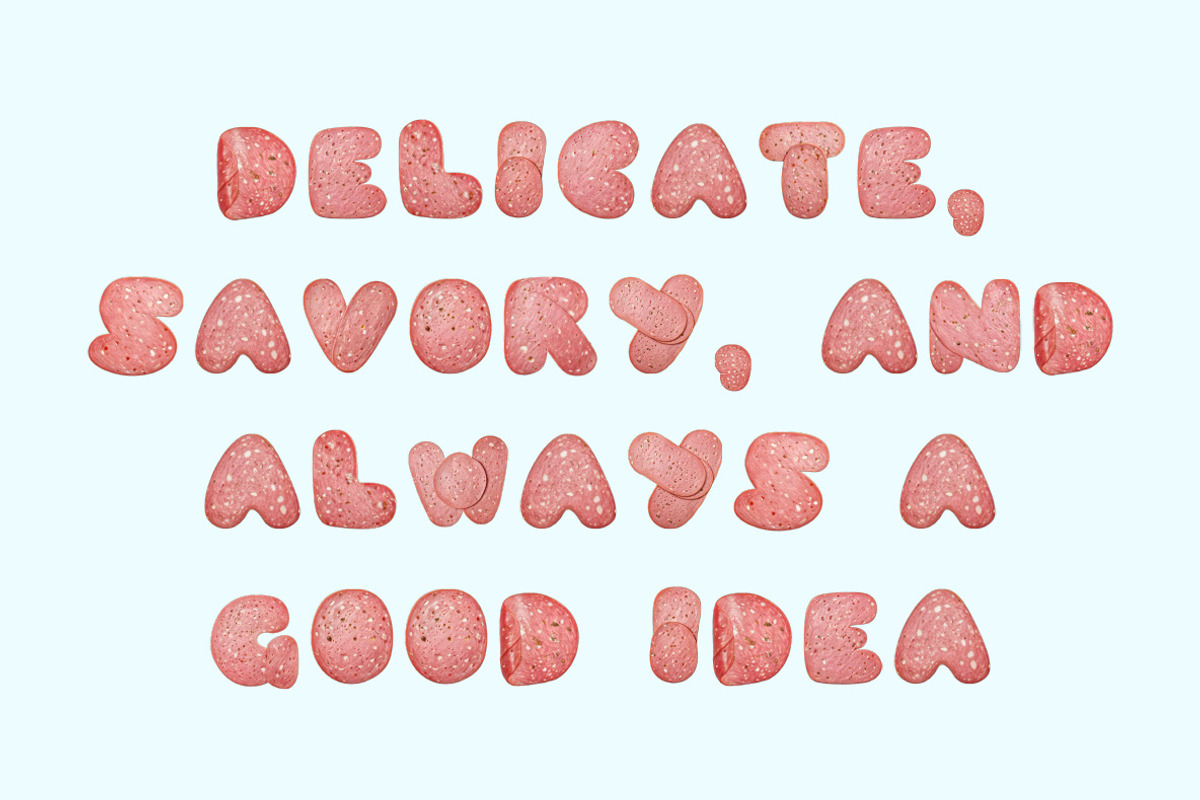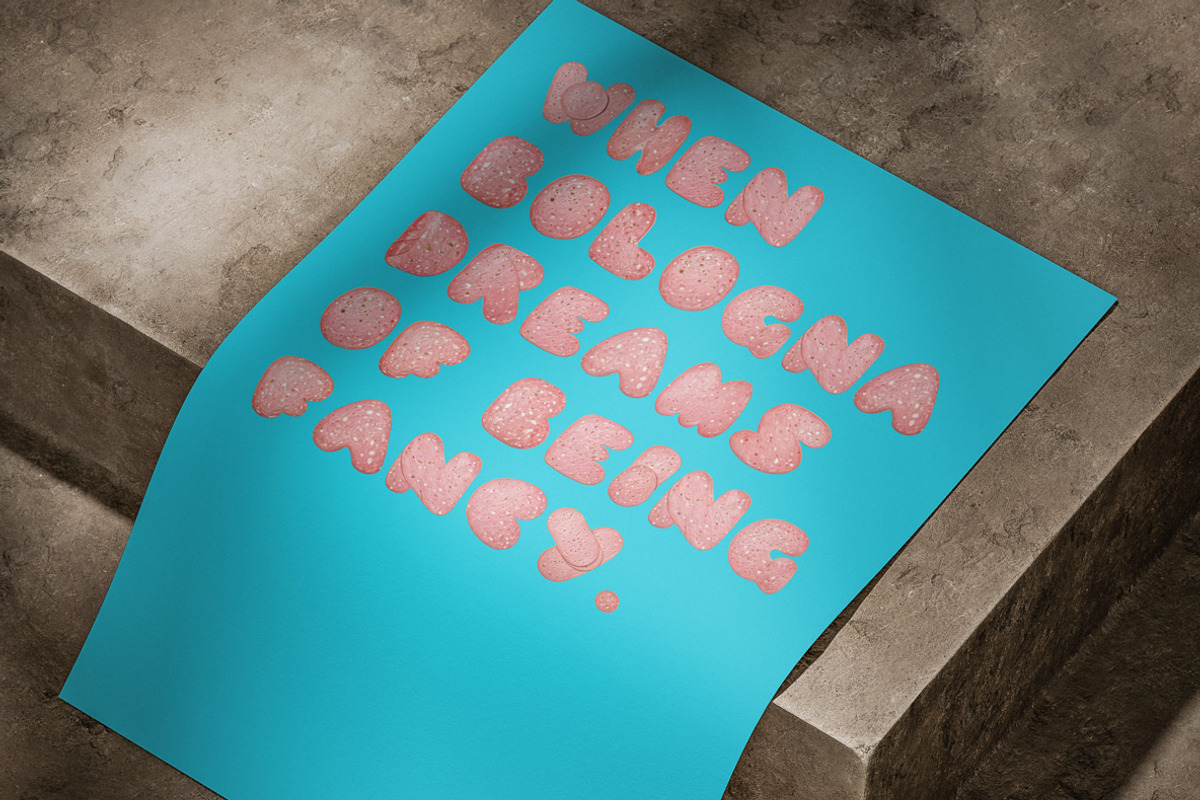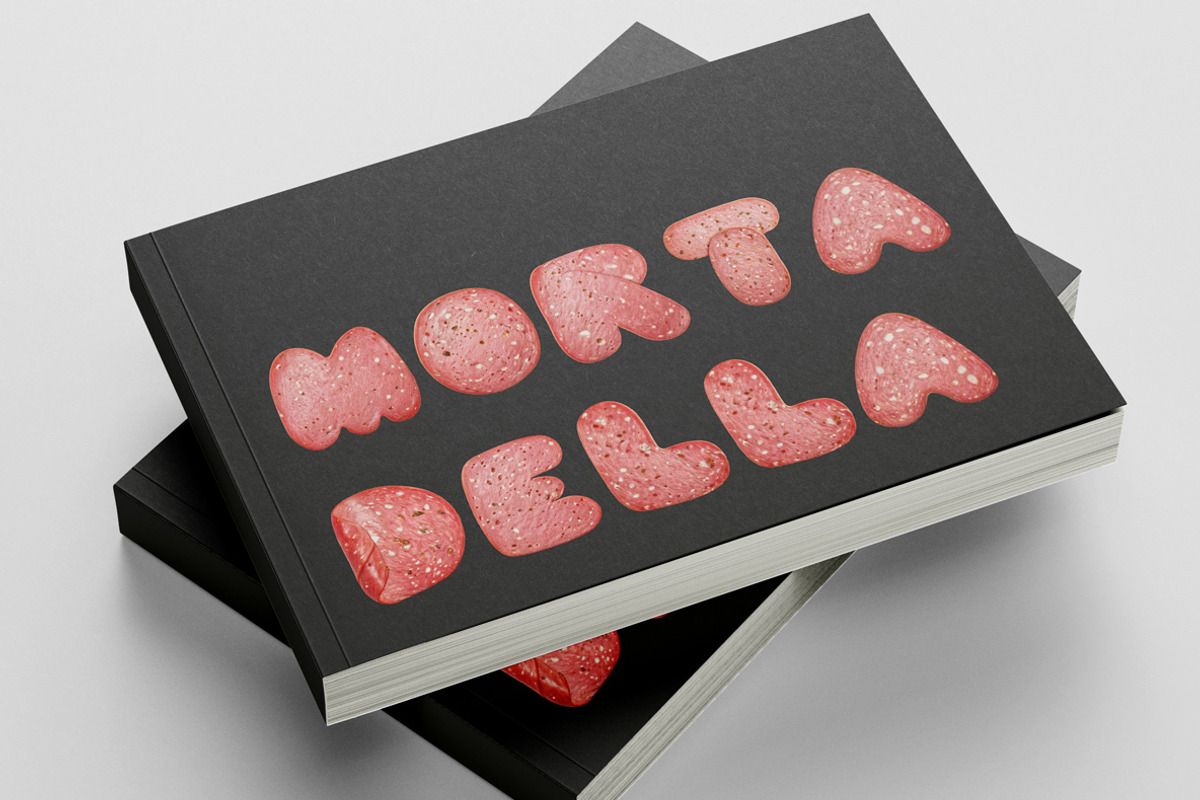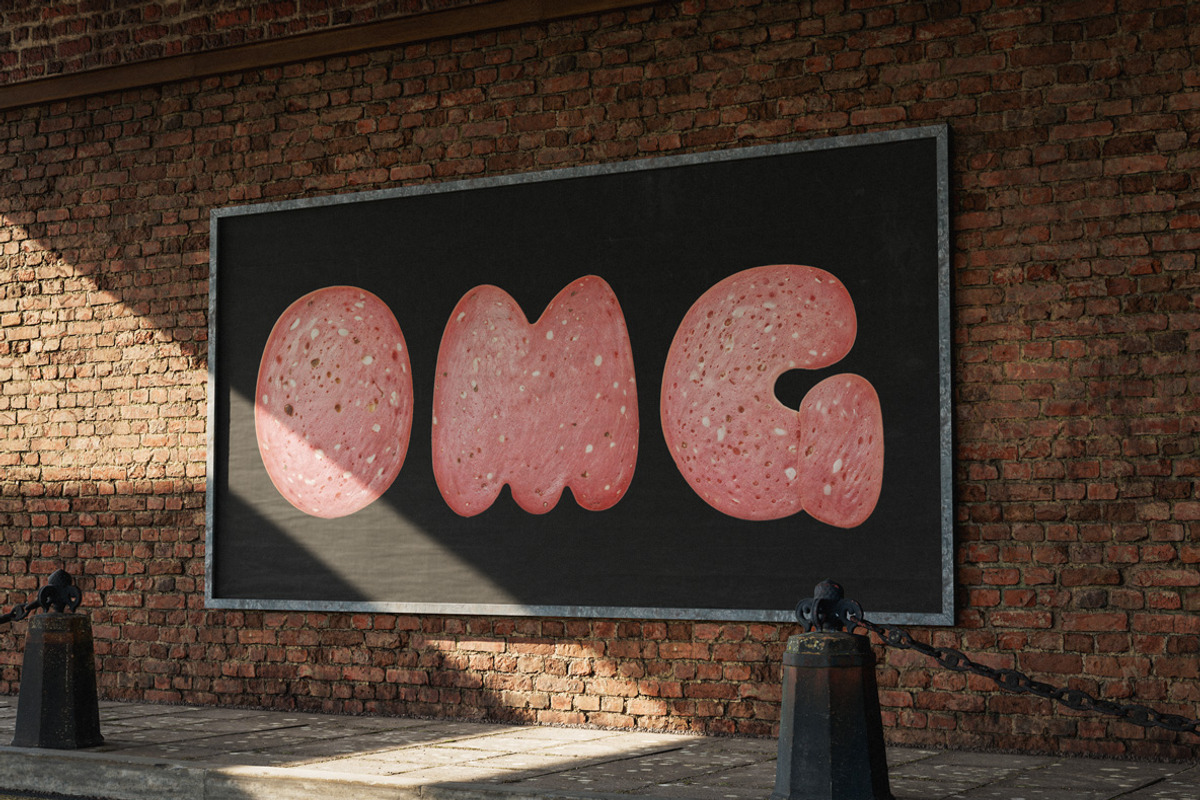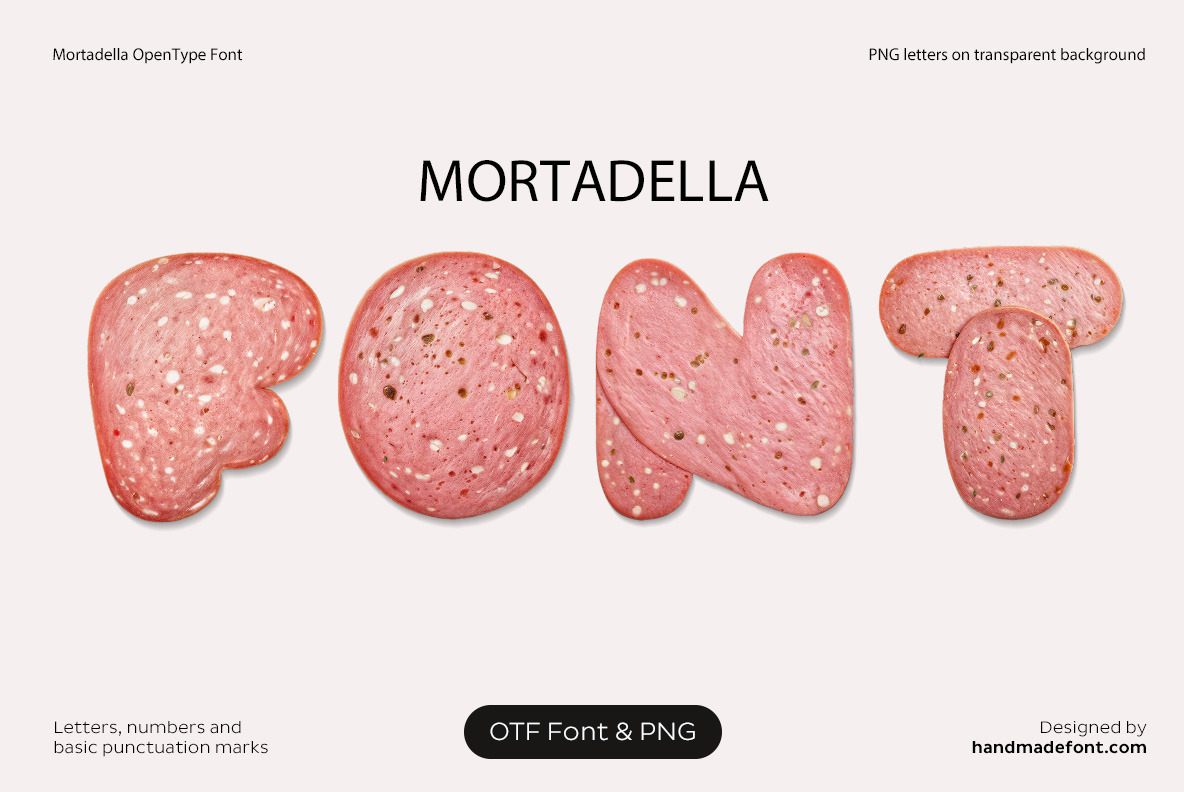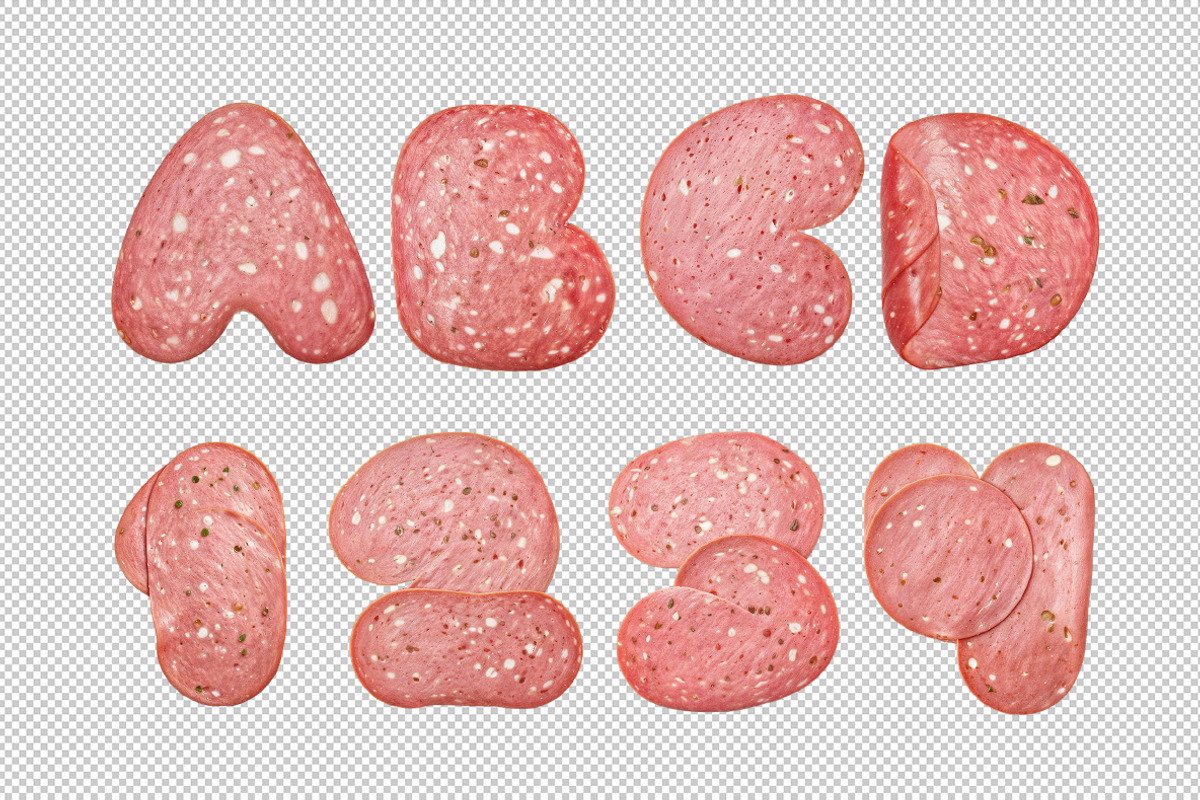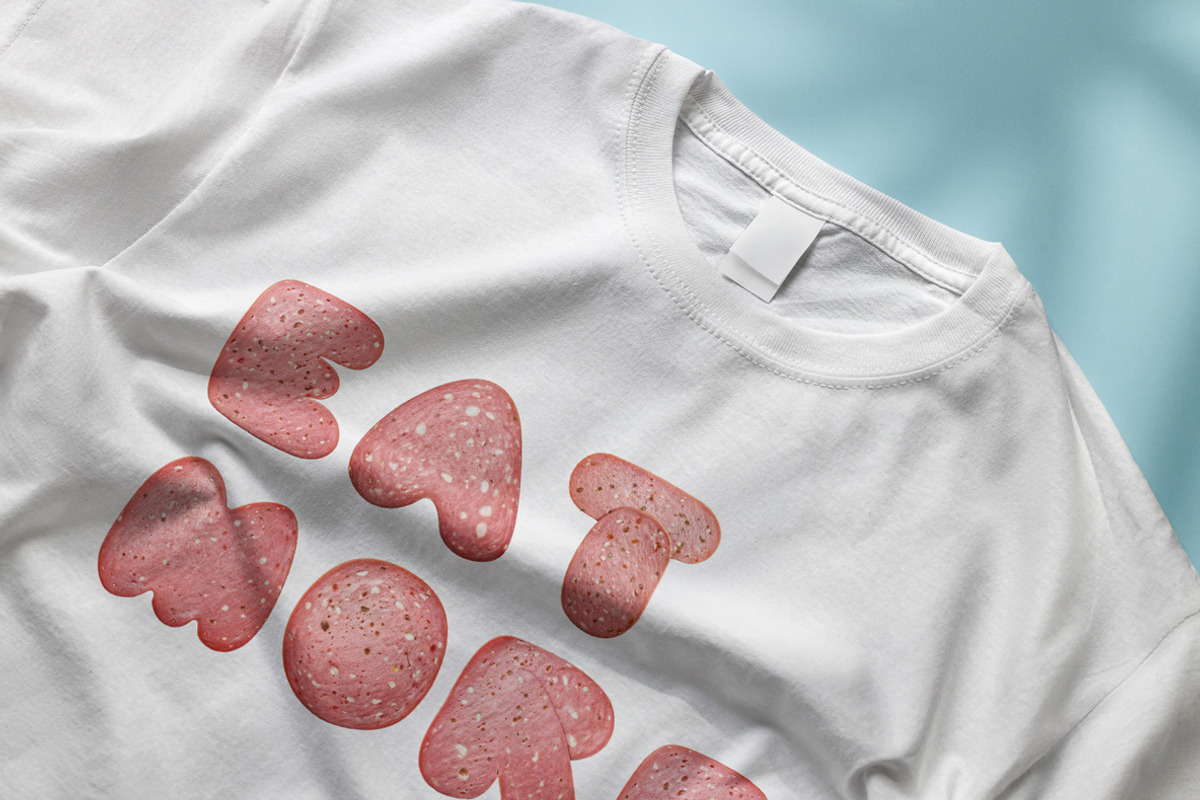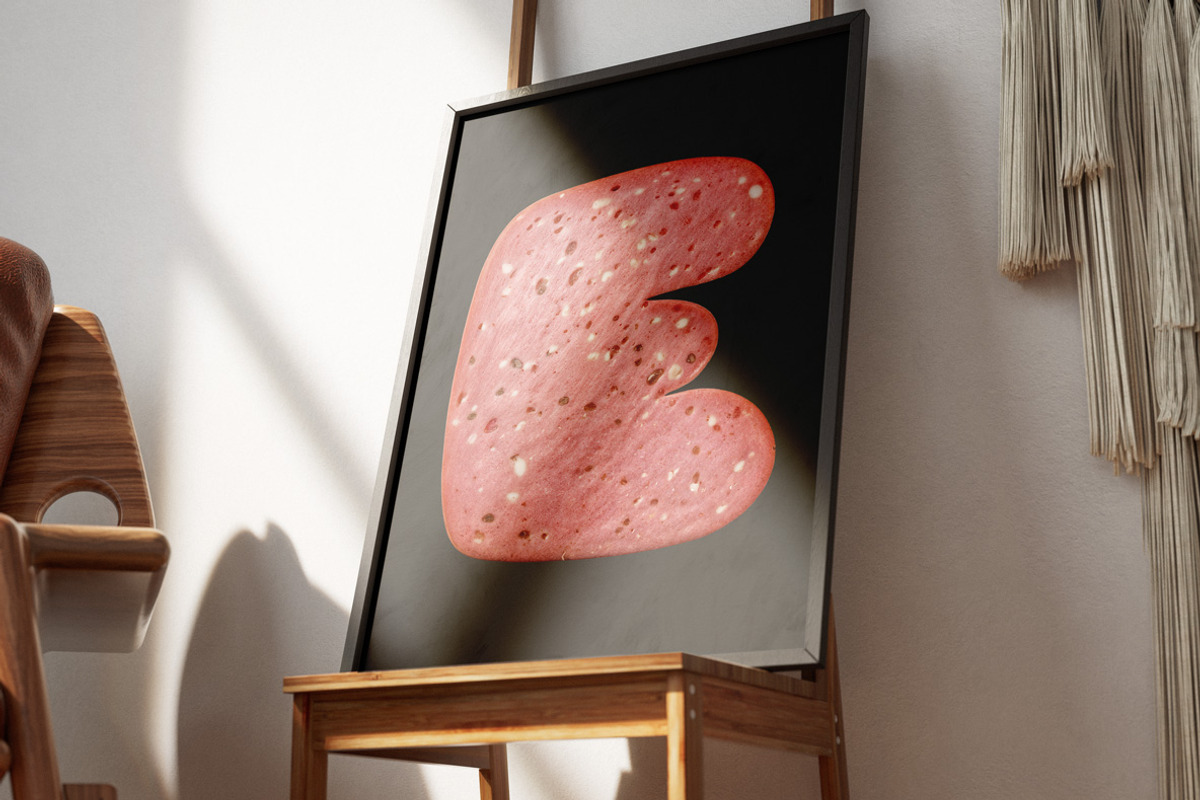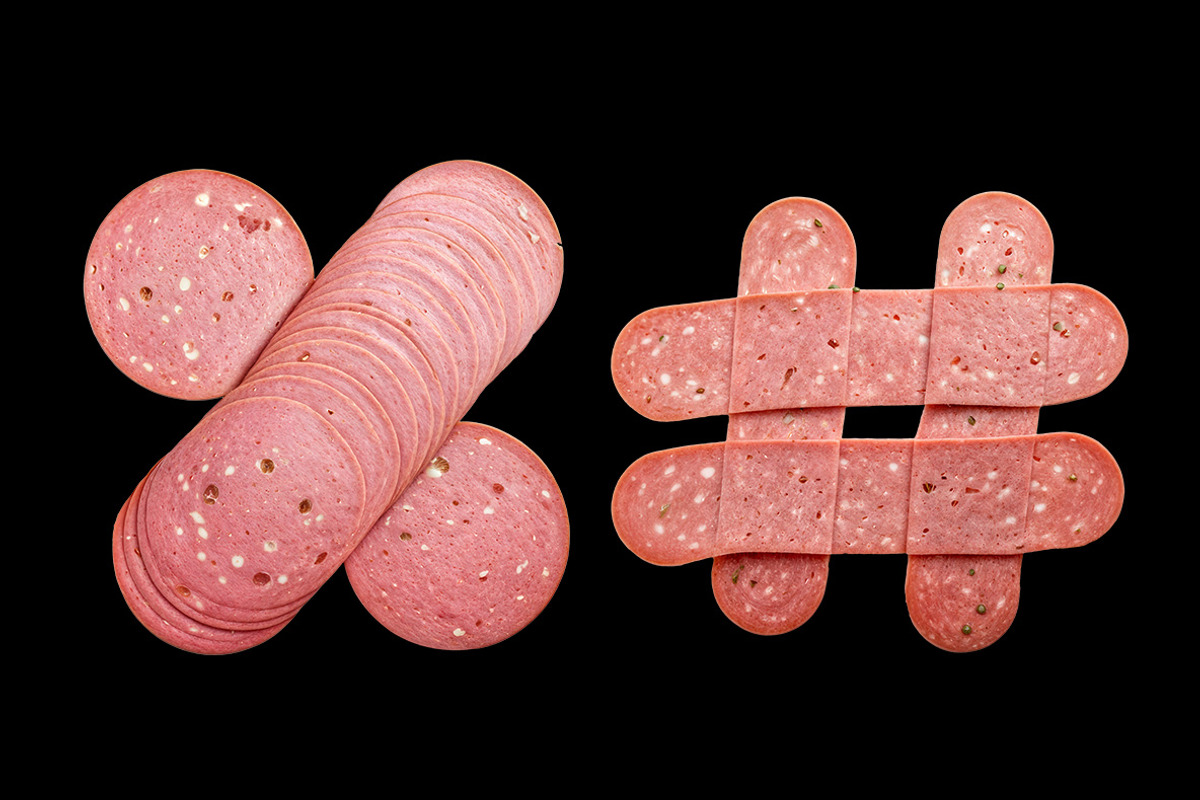
Mortadella Font
Italy has given the world many delicious things—pizza, pasta, and now… Mortadella Font! This Mortadella-inspired font turns your words into a gourmet charcuterie masterpiece, with each letter crafted from perfectly sliced mortadella, the iconic Italian cured meat. Its smooth, pink texture, dotted with luscious white fat cubes and crunchy green pistachios, makes every letter look as mouthwatering as a fresh deli sandwich. Whether you're designing a foodie menu, a butcher’s logo, or just craving typographic bologna, Mortadella typography brings a touch of savory creativity to your projects. It’s salami meets calligraphy, pork meets penmanship, and 100% gourmet lettering—no refrigeration required! Warning: Staring too long at Mortadella Font may cause uncontrollable hunger. 🍖😂